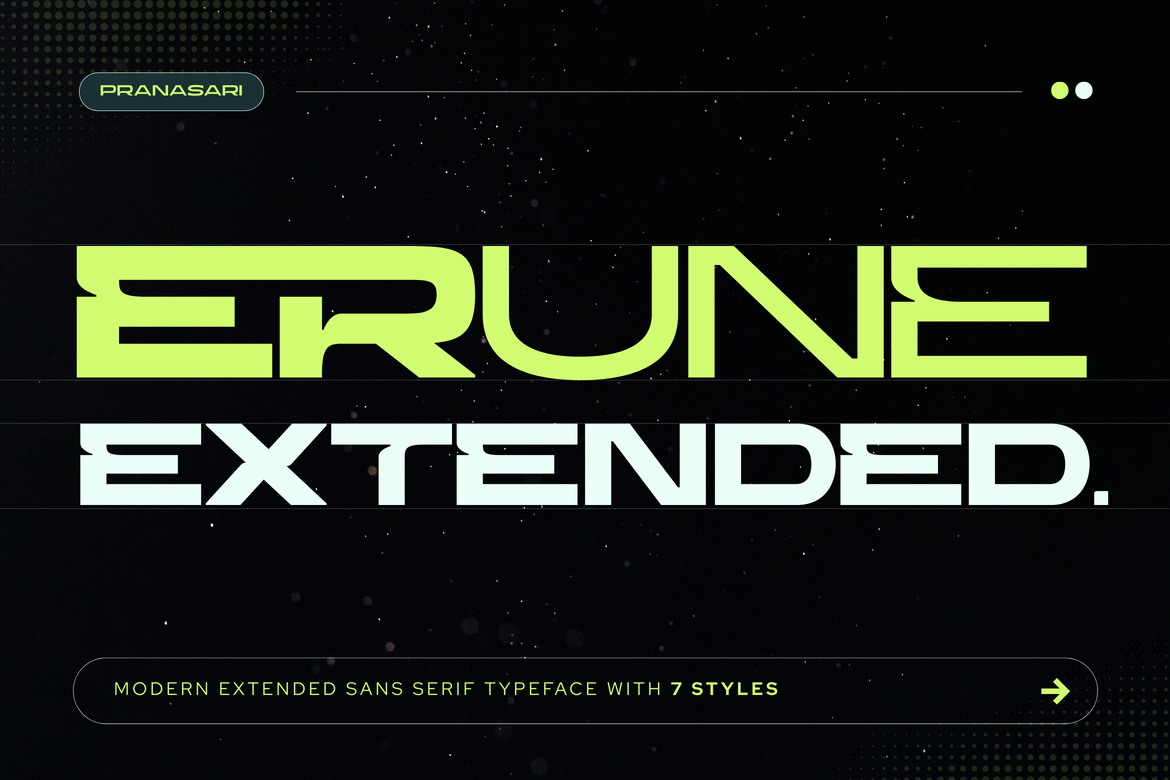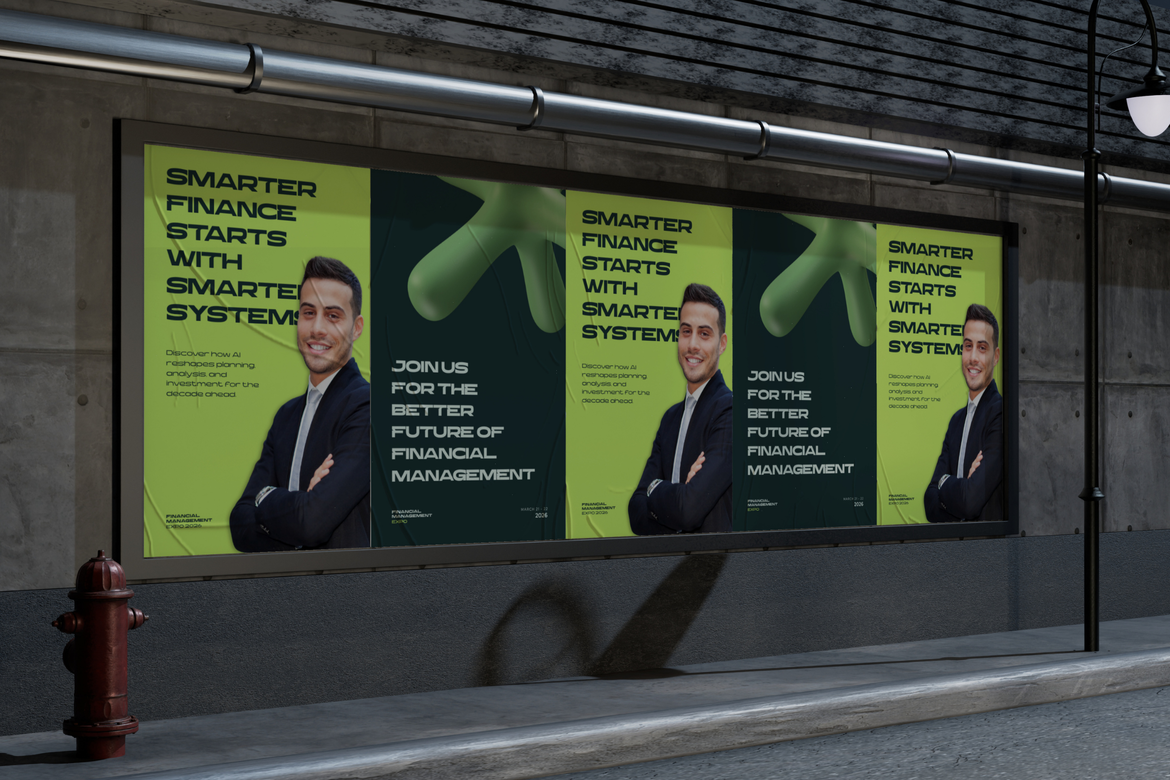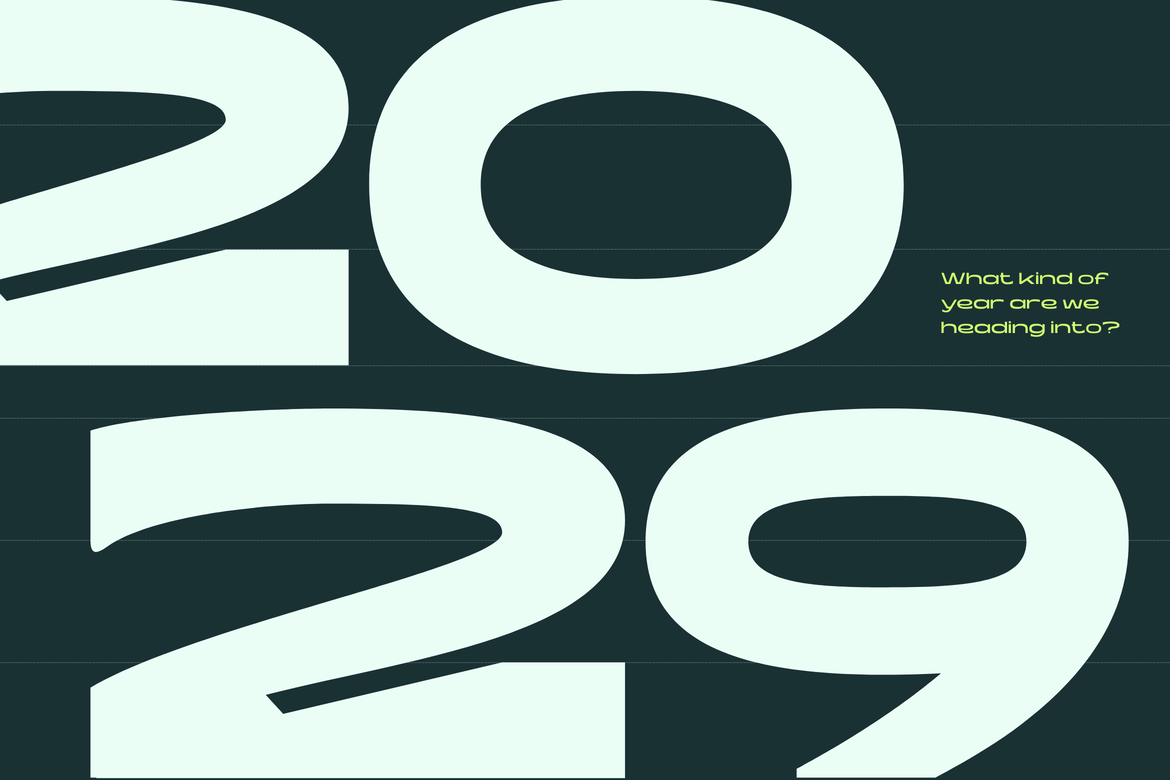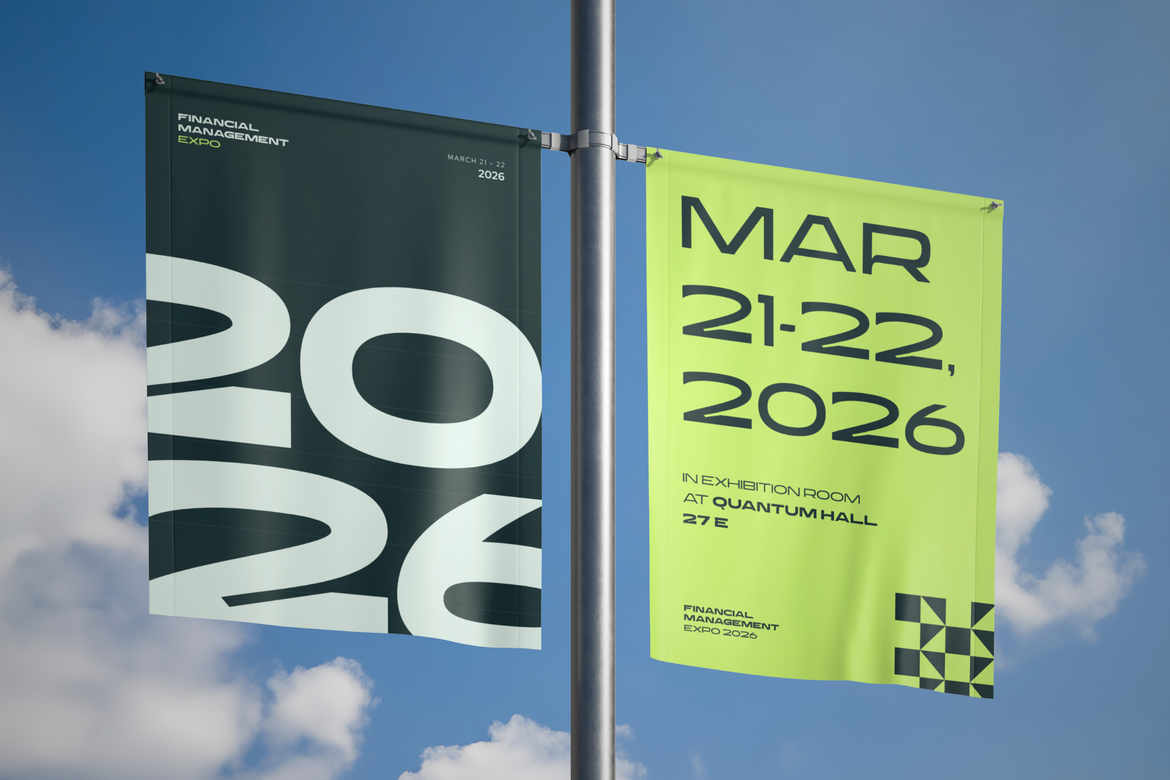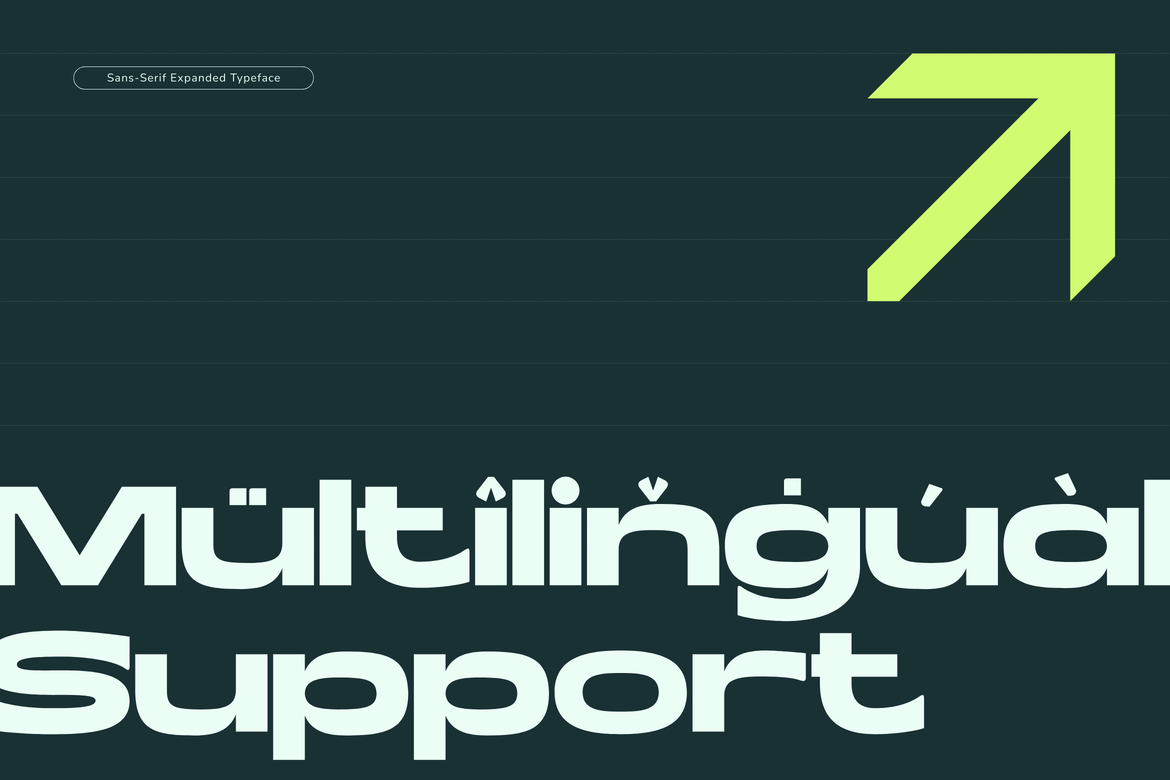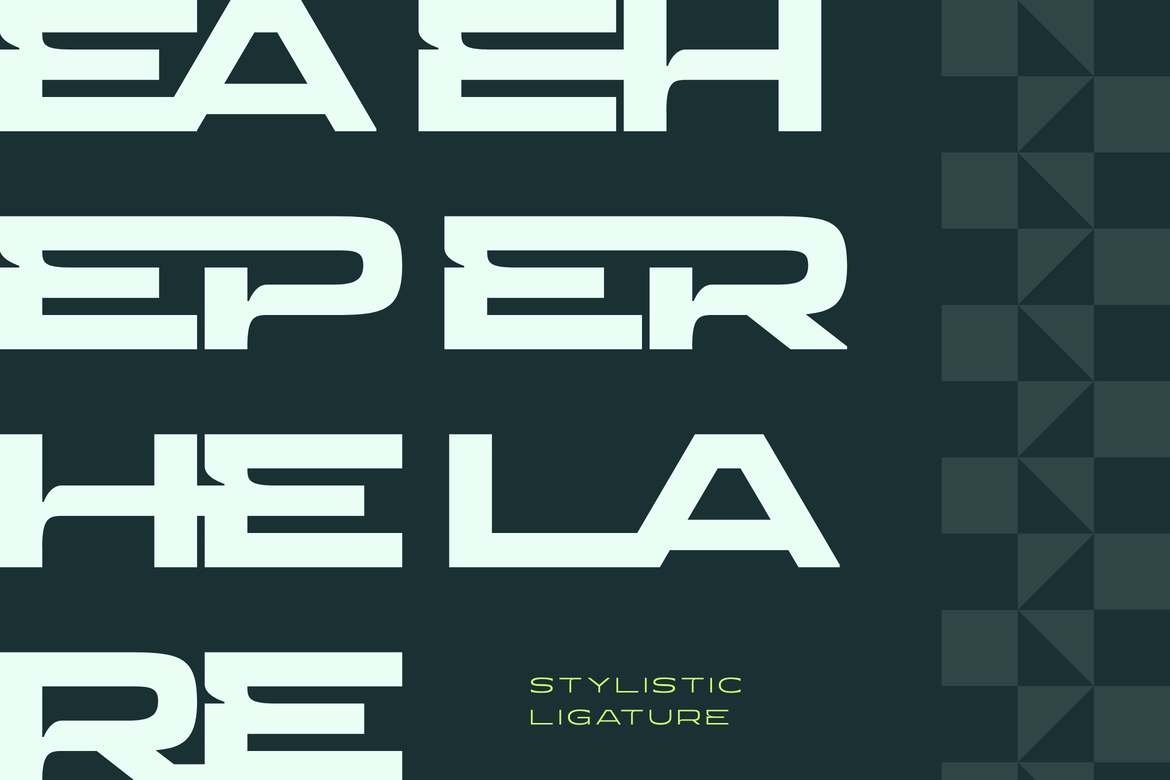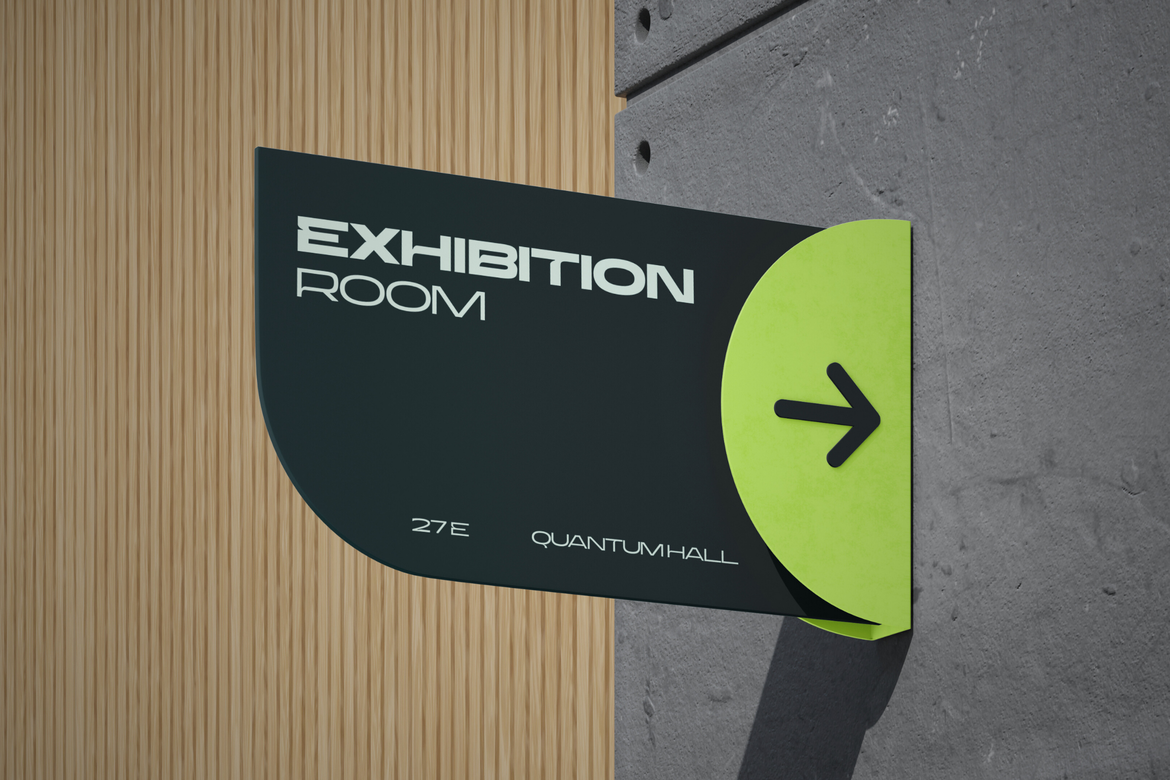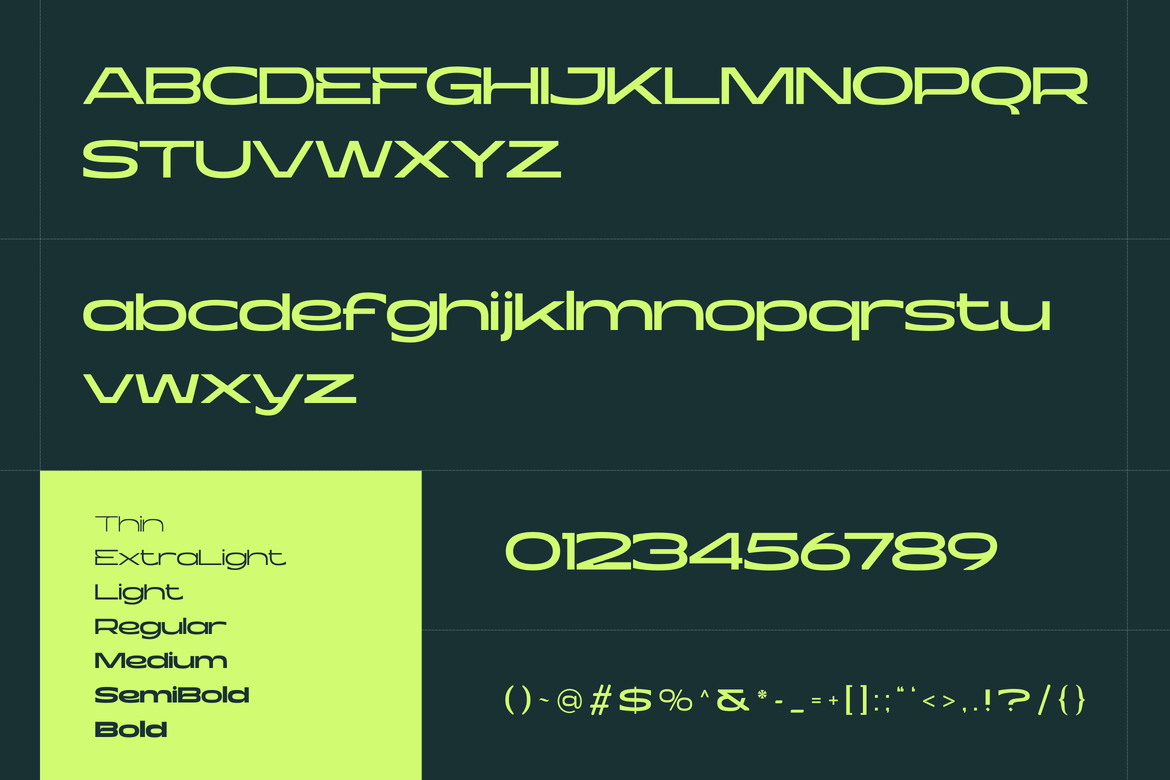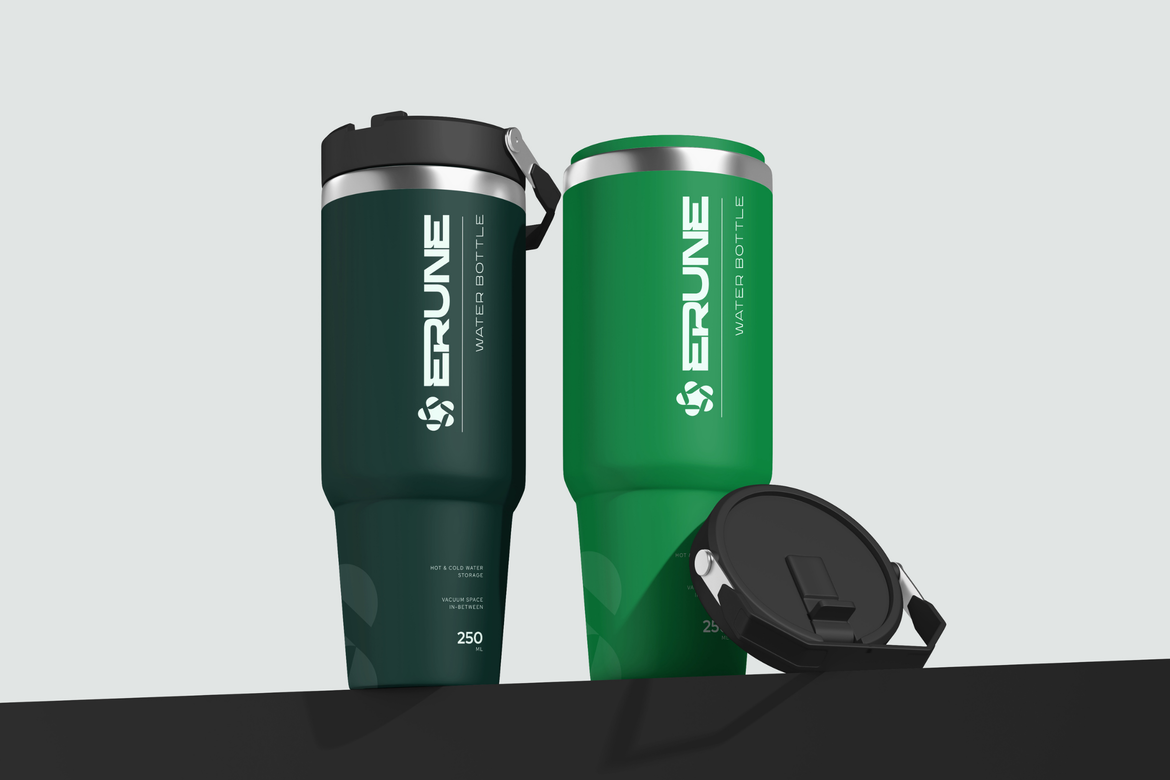
Erune Extended offers beautiful typographic harmony for a diversity of design projects, including logos & branding, social media posts, advertisements & product designs.
What you get : Seven Font Styles From Thin until Bold